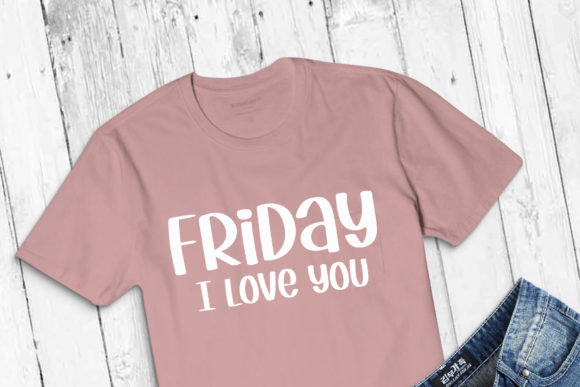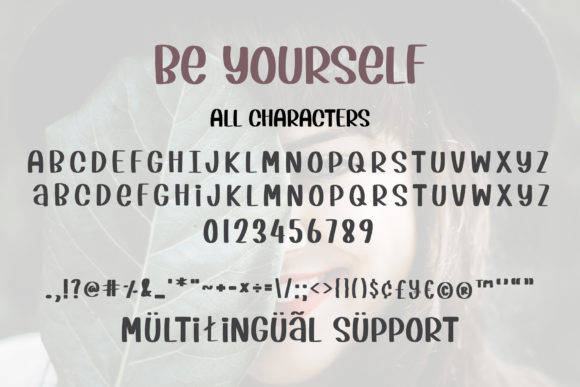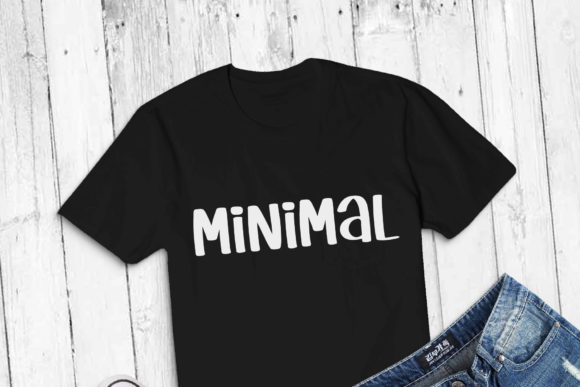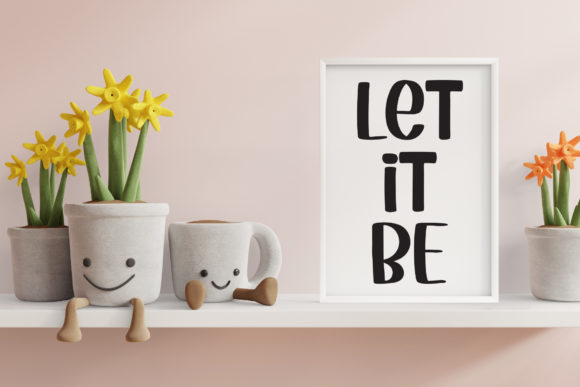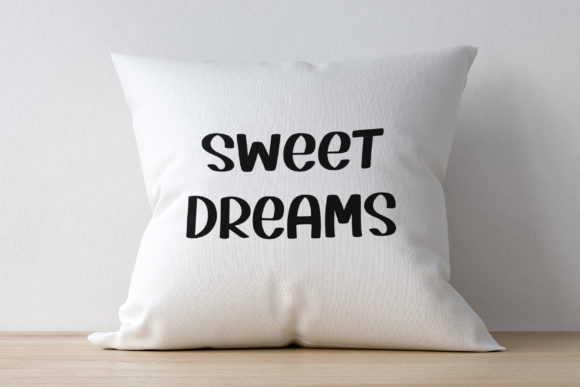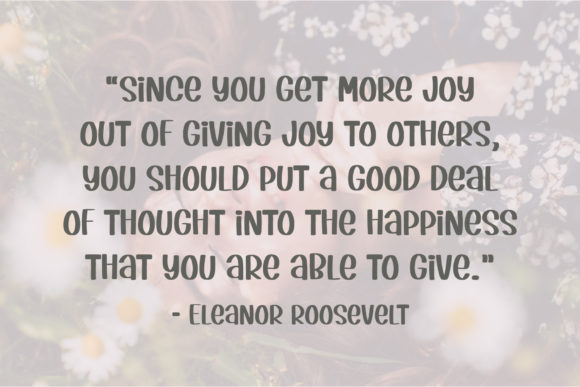
Embracing Your Unique Style with the Be Yourself Font
Do you ever find yourself staring at a blank page, searching for the perfect font to bring your creative vision to life? For designers, finding the right font can be a game-changer – it’s the difference between a project that’s just okay, and one that truly stands out. I remember the moment I discovered the Be Yourself Font, and how it instantly sparked a wave of inspiration.
This adorable handwritten font is the perfect fit for logos, branding, posters, and crafty DIY projects. Its playful and quirky vibe makes it a standout choice for designers looking to add a touch of personality to their work. The Be Yourself Font is more than just a font – it’s a way to convey your unique style and approach to design. Whether you’re a seasoned pro or just starting out, this font is sure to be a valuable addition to your toolkit.
Be Yourself Font Key Features
- Font Family: Be Yourself is a unique, modern sans-serif font designed to convey a sense of approachability and friendliness.
- Unique Characteristics: The font’s distinctive rounded edges and subtle flair on the terminals give it a friendly, approachable feel that sets it apart from other sans-serif fonts.
- Character Set: Includes a comprehensive set of characters, including Latin, Greek, and Cyrillic alphabets, as well as punctuation and symbols.
Be Yourself Font Review
I’ve had the chance to work with the “Be Yourself Font” on a few projects, and I must say it’s been a mixed bag. Here are my thoughts.
- Unique Character: The font has a distinct, quirky feel to it that sets it apart from more traditional fonts. It’s perfect for projects where you want to add a bit of personality.
- Legibility: Despite its unconventional look, the font is surprisingly easy to read. It’s clear and concise, making it a great choice for body text.
- Creativity: The font is a great choice for designers looking to push the boundaries of traditional typography. It’s a great way to add some visual interest to a project.
- Readability at Small Sizes: While the font is legible at larger sizes, it can become difficult to read at smaller sizes. This can be a problem for projects where you need to use the font at a small size.
- Limited Use Cases: The font’s quirky feel may not be suitable for all projects. It’s best used for projects where you want to add a bit of personality, but it may not be the best choice for more formal or traditional projects.
Overall, I think the “Be Yourself Font” is a great choice for designers looking to add some personality to their projects. While it has some limitations, it’s a unique and creative font that can add some visual interest to a project. Just be mindful of its limitations and use it sparingly.
Tips for Getting the Most Out of Be Yourself Font
To get the most out of the Be Yourself font, try:
- Using it for creative and expressive projects, such as invitations, social media graphics, and posters.
- Experimenting with different font sizes, colors, and styles to create a unique look.
- Combining the Be Yourself font with other fonts to create a visually appealing design.
The Be Yourself font is commonly used for:
- Wedding invitations and decorations.
- Social media graphics and advertising.
- Posters and flyers for events and promotions.
Alternatives to Be Yourself Font for Designers
Ostrich Sans is a modern sans-serif font with a unique, playful feel. It’s perfect for use in headings, logos, and titles where a bold, eye-catching look is desired. In comparison to Be Yourself Font, Ostrich Sans has a more geometric and futuristic aesthetic, making it ideal for tech-related or futuristic designs.